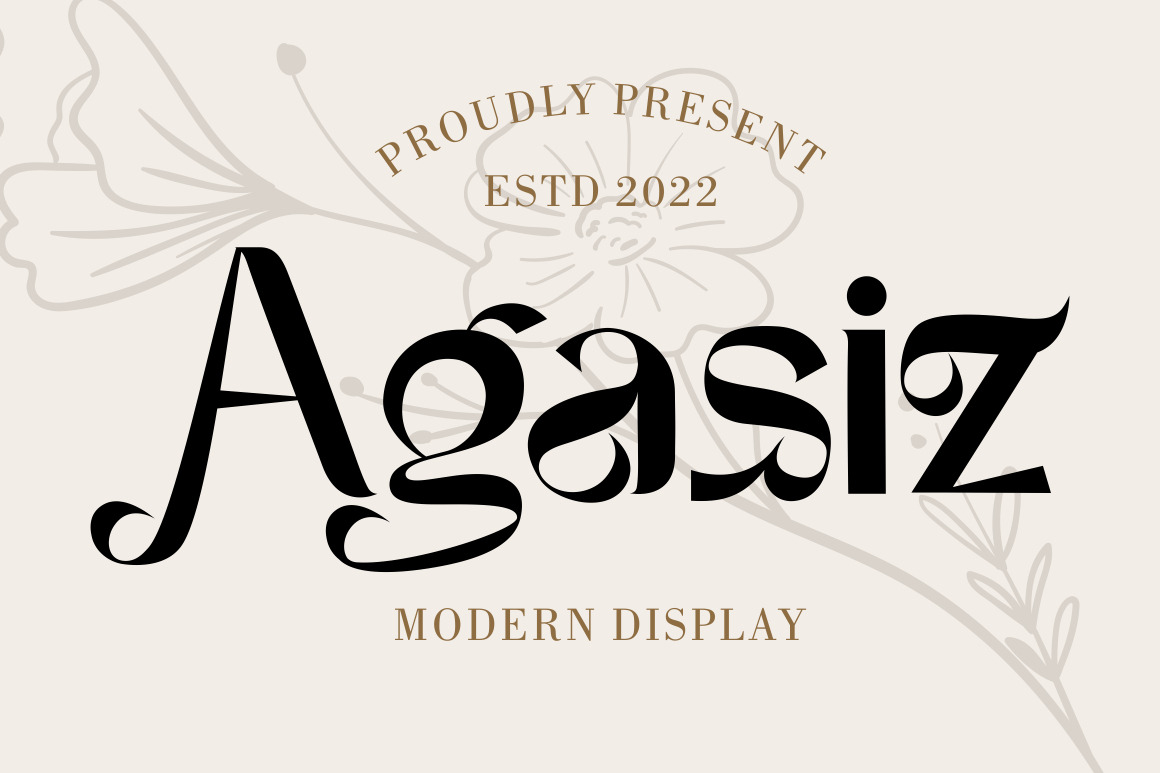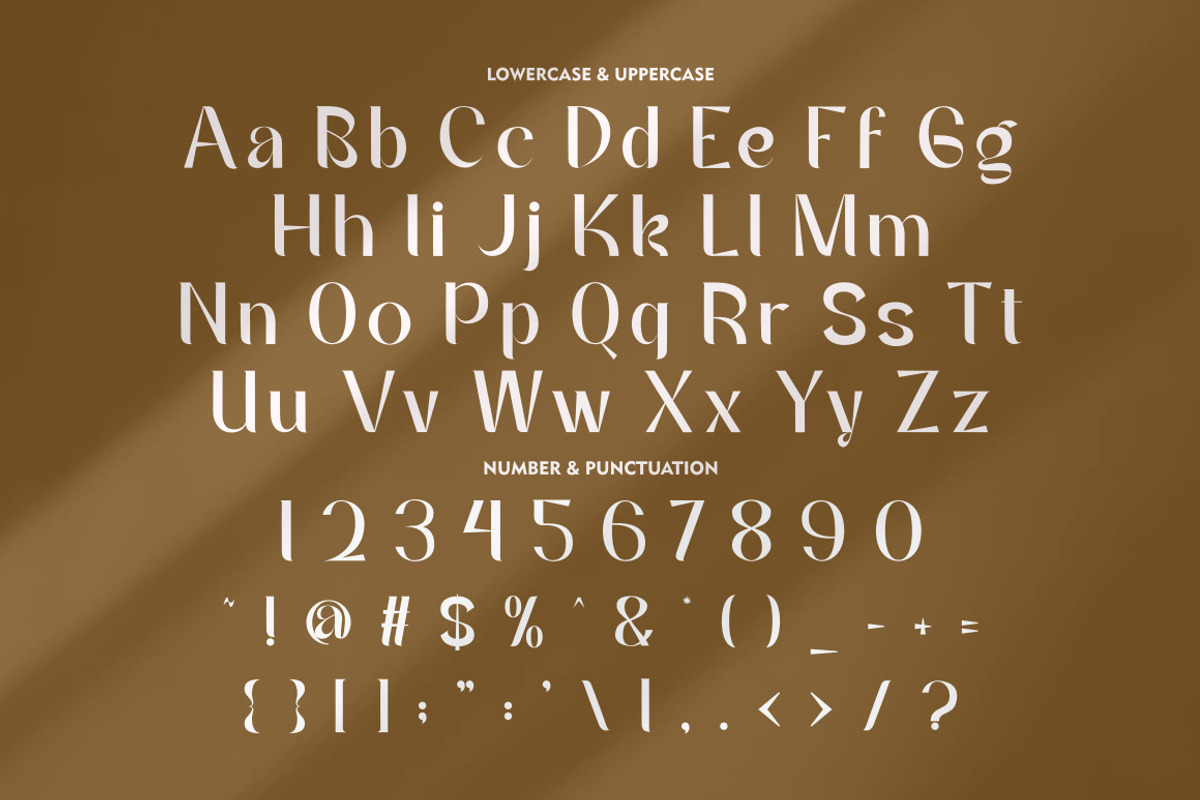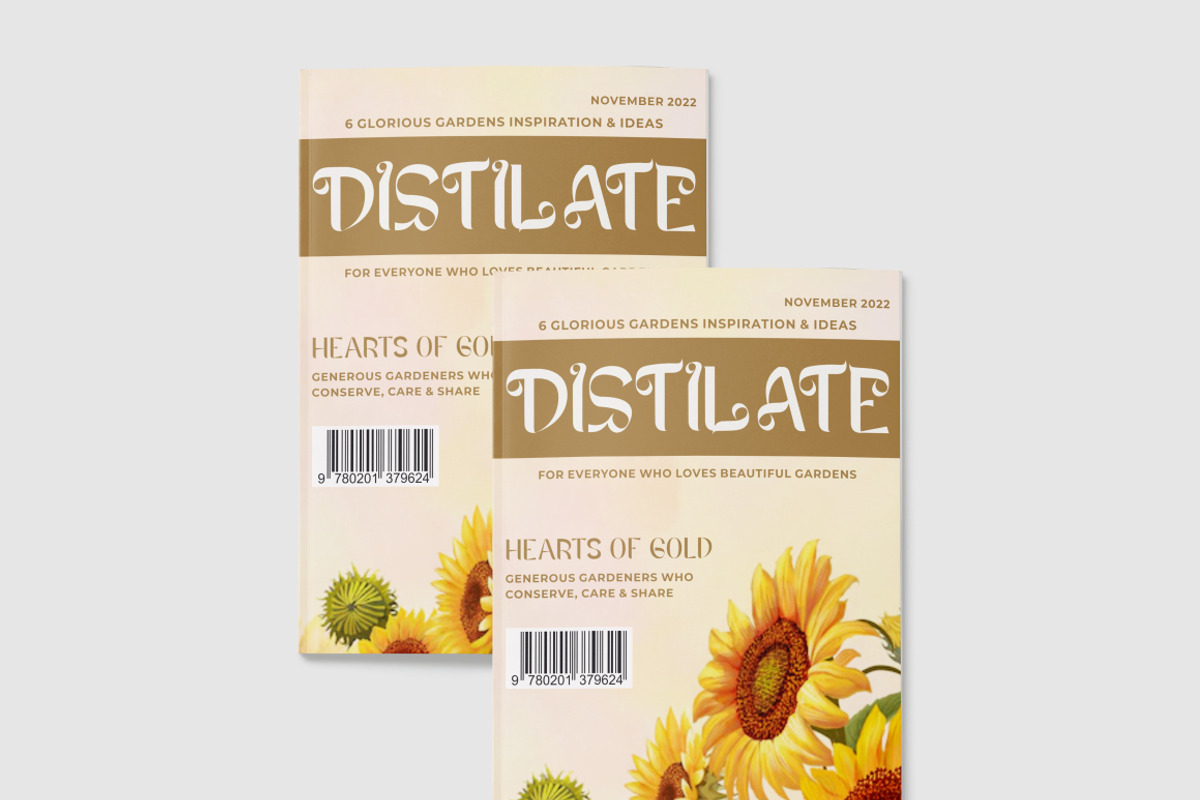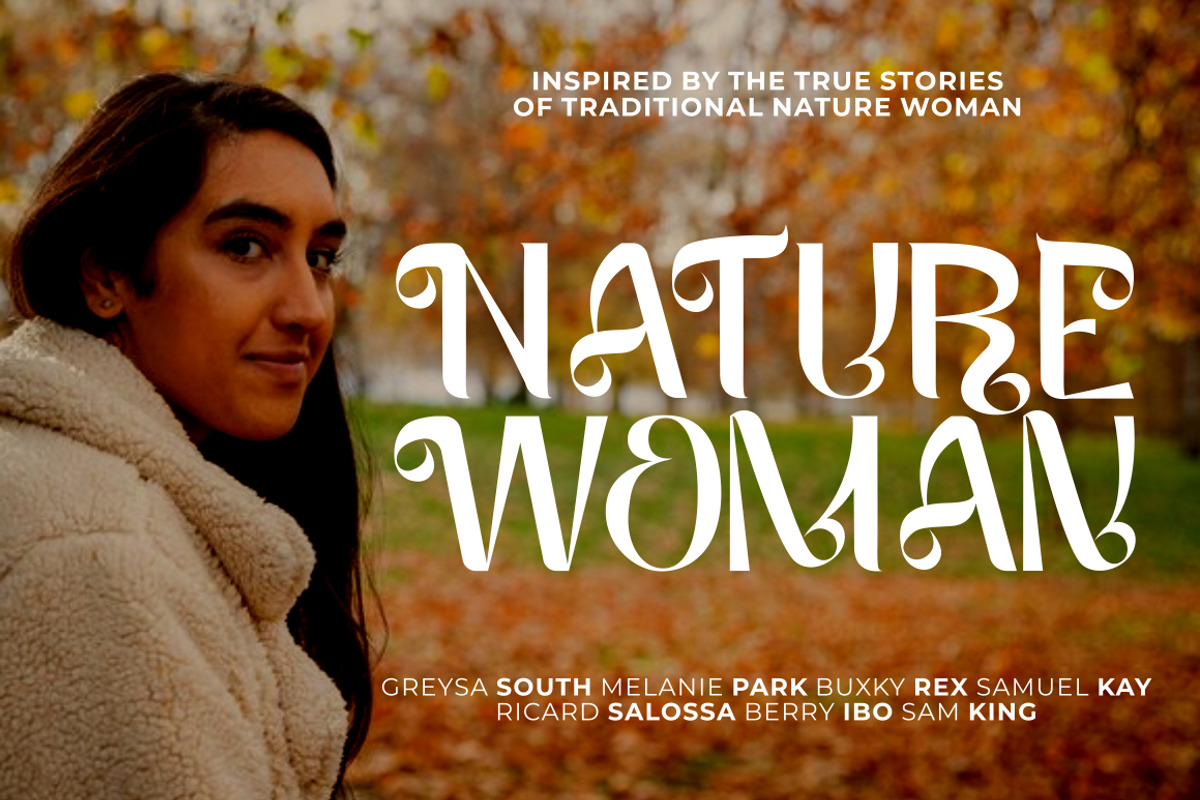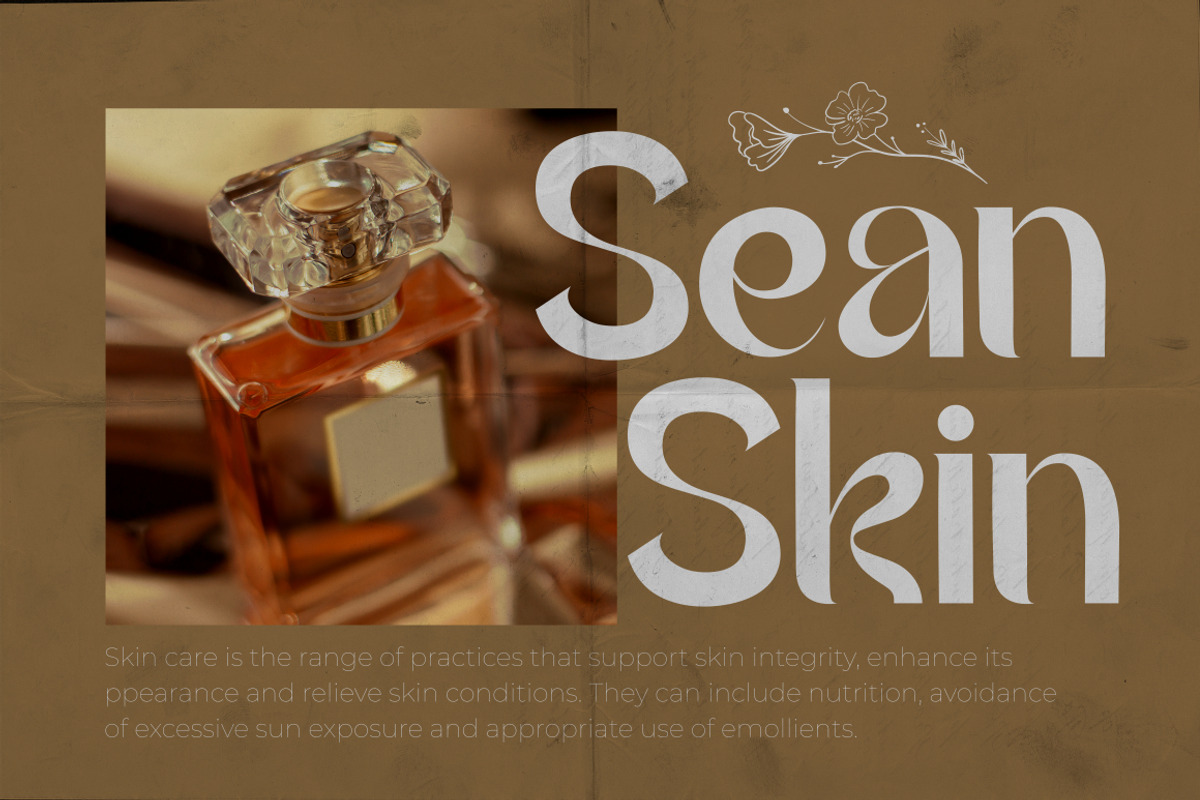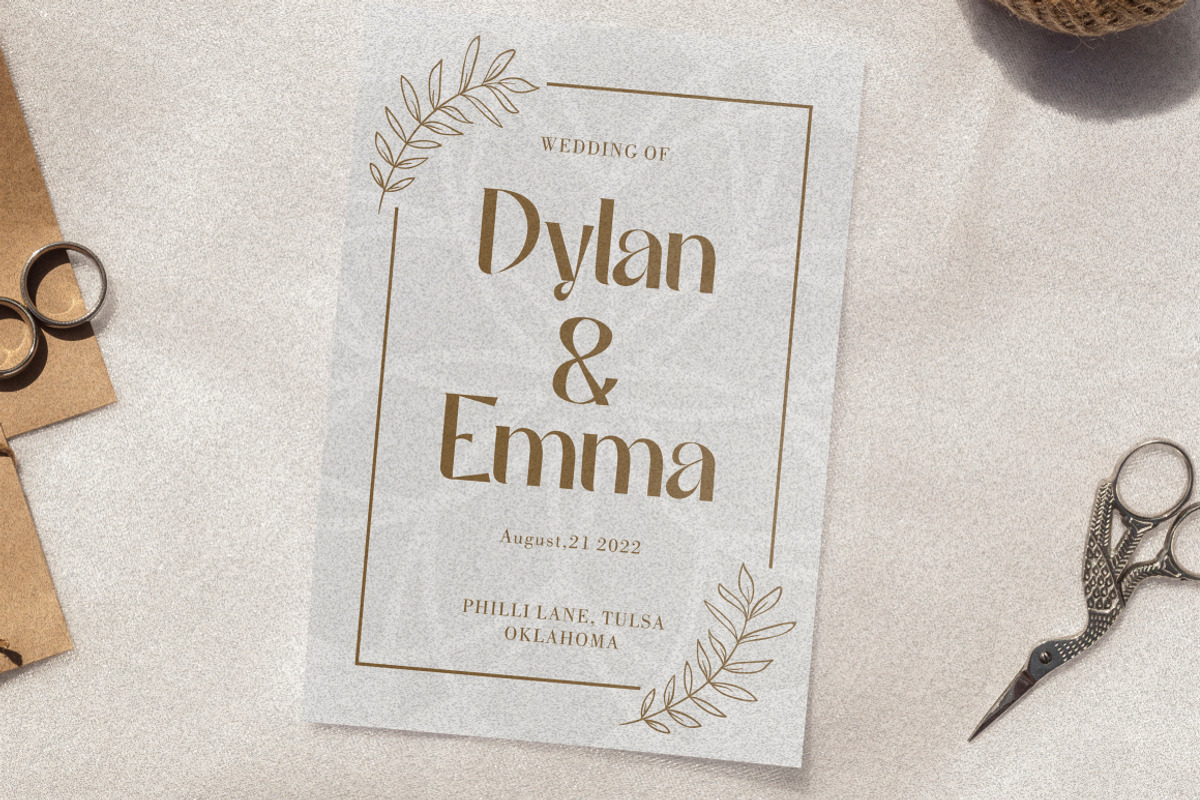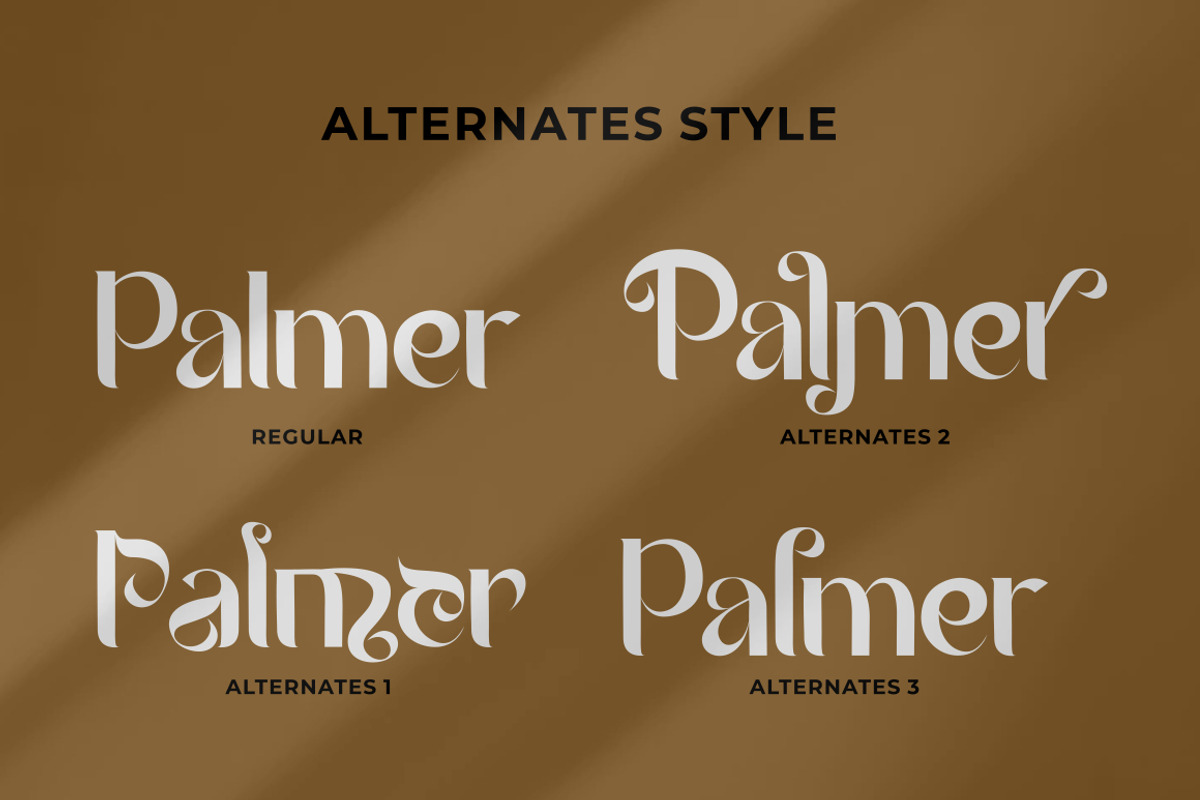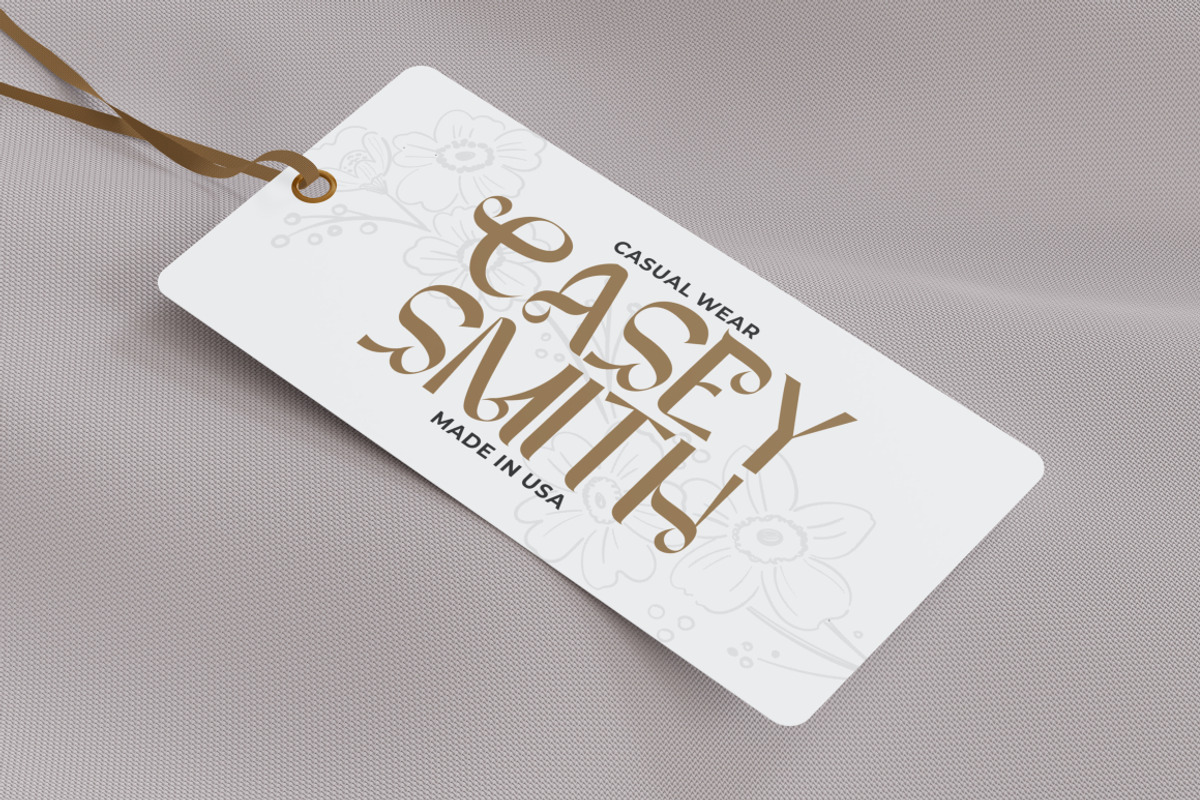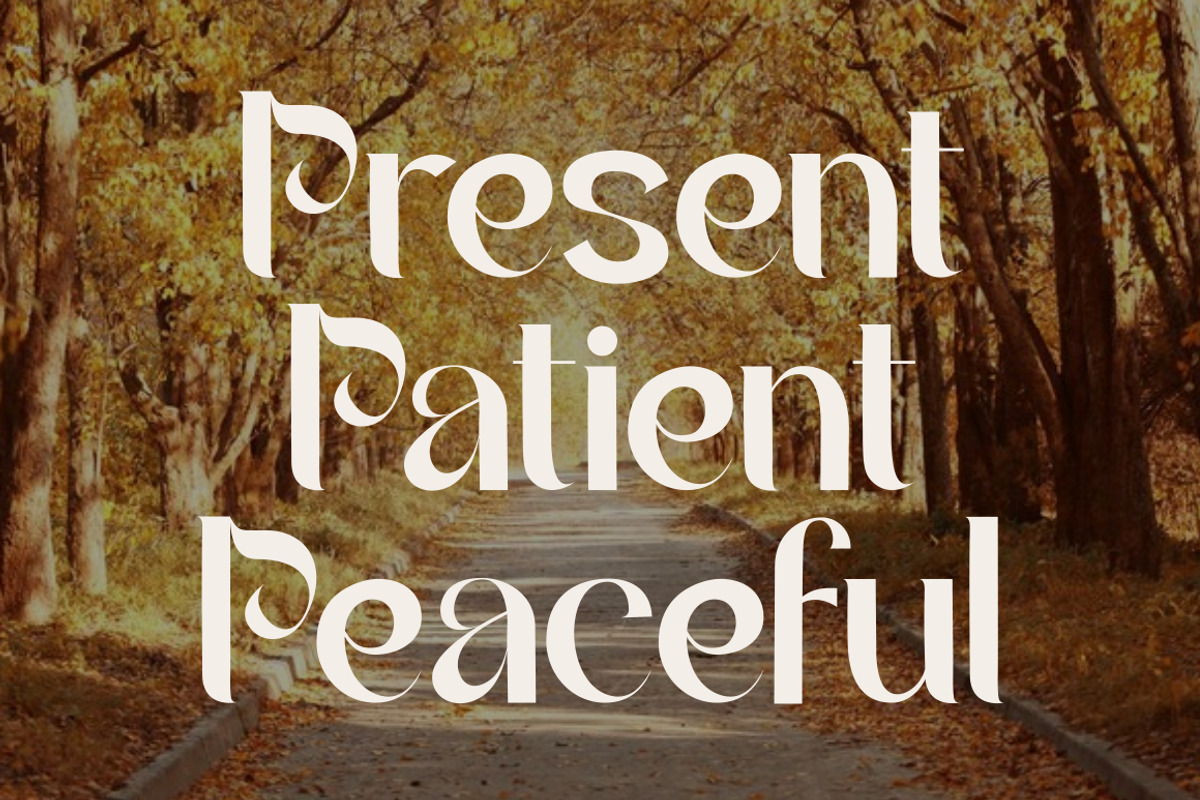
Agasiz - Modern Display Font
Agaiz - Modern Display Font
Agaiz - Modern Display Font. Inspired from unique typography and lettering in the elegant alphabet from modern megazine and we combine with elegant typography style. With modern ligature you can make great lettering for beautiful artwork. Come with open type feature ( a lot of alternates and end swash), its help you to make great lettering. Agaiz best uses for Logotype, heading,cover, poster, logos, quotes, product packaging, header, merchandise, social media & greeting cards and many more. Agaiz font is also support multi language.
Comes with feature :
- Opentype (Alternates And Ligatures)
- Number, Punctuation And Symbols
- Multilanguage Support.